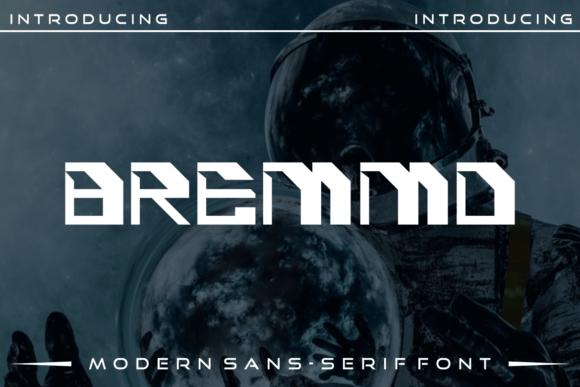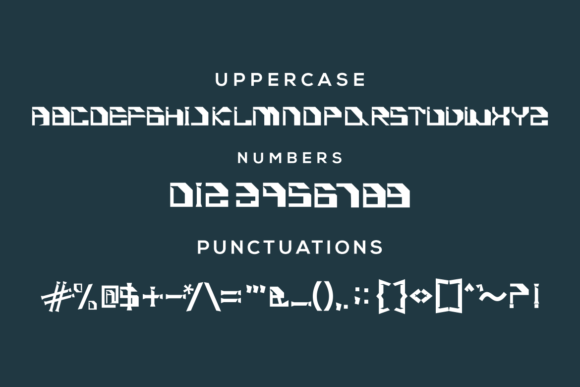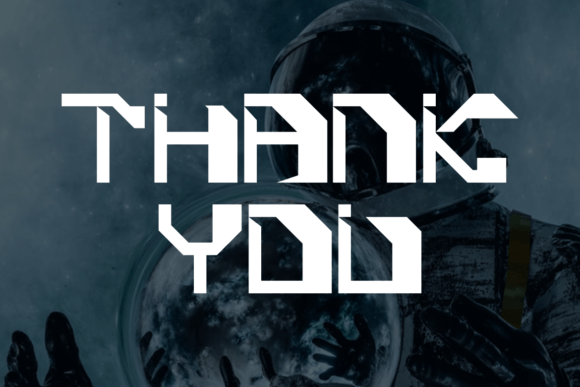
The Perfect Blend of Elegance and Sophistication: Unveiling the Bremmo Font
Have you ever stared at a blank page, waiting for the perfect font to bring your creative vision to life? That’s exactly what happened to many designers when they discovered the Bremmo Font. This modern display font is more than just a typeface – it’s an experience that transports you to a world of luxury and refinement.
The Bremmo Font is a masterpiece designed to elevate your designs and leave a lasting impression. Whether you’re working on a high-end logo, a wedding invitation, or a fashion brand, this font is the perfect companion to help you create something truly remarkable. Its versatility and timeless charm make it a valuable asset for any designer looking to add a touch of sophistication to their work.
Bremmo Font Review
I recently had the chance to work with the Bremmo font, and I must say, it’s an interesting choice. Here are my thoughts:
- Unique and quirky design: Bremmo font stands out from the crowd with its distinctive letterforms and bold personality.
- High contrast: The font’s bold and thin weights provide a nice contrast, making it perfect for creating visually appealing headlines.
- Good legibility: Despite its unique design, Bremmo font is still easy to read, even at smaller font sizes.
- Not suitable for body text: Bremmo font is best used for headlines and titles due to its bold and attention-grabbing nature, which can be overwhelming for large blocks of text.
- May not be suitable for all projects: Depending on the project’s tone and style, Bremmo font might not be the best fit. Its quirky design might not mesh well with more conservative or traditional projects.
- May require careful kerning: Some letter combinations might require special attention to kerning to maintain the font’s unique look.
Bremmo font is a great choice for projects that need a bold and eye-catching headline font. However, it’s essential to use it judiciously and consider its limitations before making it a staple in your design library.
Tips for Getting the Most Out of the Bremmo Font
For the best results, use the Bremmo Font in combination with bold and italic styles to create emphasis and contrast. You can also use it in combination with other fonts to create a unique and eye-catching design. Experiment with different font sizes and colors to find the perfect balance for your design.
The Bremmo Font is ideal for creating unique and eye-catching designs for logos, branding materials, and marketing materials. It’s also perfect for creating a distinctive and memorable title or heading for your website or presentation.